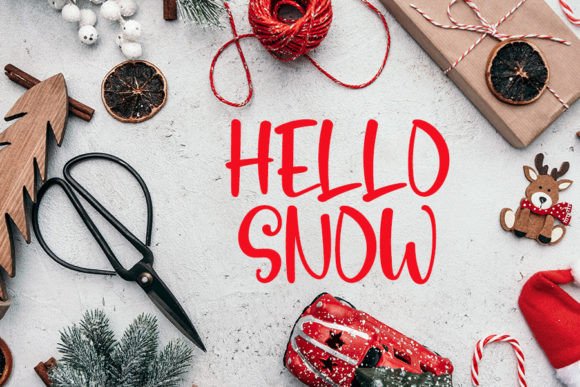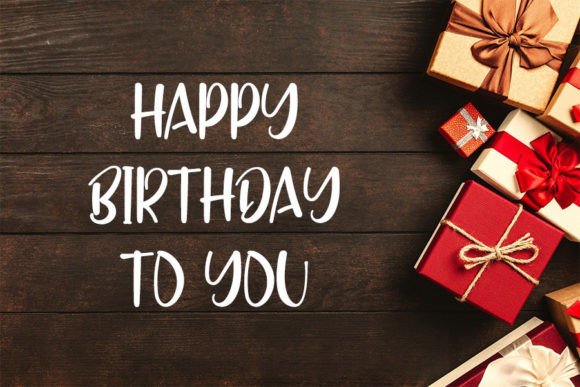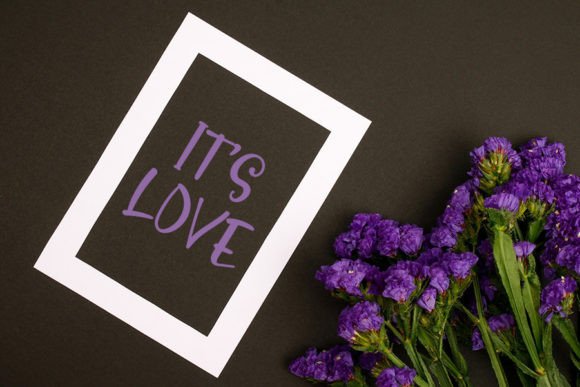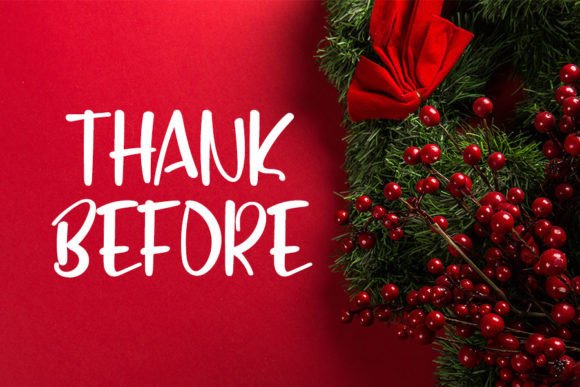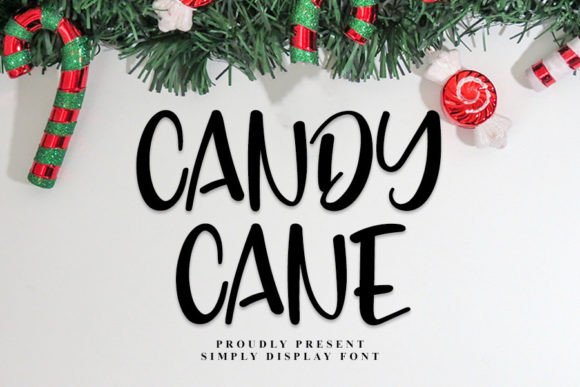
The Sweetest Font for Your Designs: A Comprehensive Guide to Candy Cane Font
Ah, the elusive perfect font. You know, that one font that makes your design project go from meh to mesmerizing. I’ve been there, done that, and got the t-shirt (which, by the way, was probably designed with a font that was almost, but not quite, perfect). One of my most memorable design struggles was working on a festive holiday project for a client who wanted something that captured the essence of the season without being too cliché. That’s when I stumbled upon the Candy Cane font, and let me tell you, it was love at first sight! ✨
An Honest Review of Candy Cane Font
So, what makes Candy Cane font so special? Let’s dive into the good stuff and, of course, a few quirks I’ve noticed.
- ✨ Timeless yet modern: Candy Cane has this rare ability to feel both classic and contemporary at the same time. It’s like that one friend who’s effortlessly cool but still nostalgic.
- ✅ Versatility: Whether you’re designing a holiday card, a branding project, or just a fun craft, this font fits right in. Its balanced and varied nature makes it perfect for a wide range of applications.
- 💫 Impeccable form: The attention to detail in Candy Cane is impressive. Each letter is crafted with care, making it a joy to use in any project.
Now, I’m not here to sugarcoat things (pun intended), so let’s talk about a couple of things to keep in mind:
- ⚠️ Legibility at small sizes: Like many script fonts, Candy Cane can get a bit tricky to read when scaled down too far. Make sure to test it at different sizes to ensure it works for your specific project.
- 🤔 OpenType features might require some getting used to: If you’re new to using OpenType features or glyphs, it might take a bit of time to get the hang of how to access and use them effectively. But trust me, it’s worth it!
The Backstory of Candy Cane Font
While the actual origins of Candy Cane font might not be well-documented, it’s easy to imagine a designer sitting by the fireplace, sipping hot cocoa, and crafting a font that’s both a nod to traditional calligraphy and a breath of fresh air in the digital age. The result is a font that’s as delightful as a candy cane on a winter’s night – charming, whimsical, and full of cheer.
Q: Is Candy Cane font suitable for body text?
A: While Candy Cane is stunning for headings and titles, its script nature might make it less ideal for long body text. However, for short paragraphs or specific design elements, it can work beautifully.
Q: Does Candy Cane support OpenType features?
A: Yes, Candy Cane font comes with OpenType features, including stylistic alternates, ligatures, and more, allowing for a high level of customization and creativity in your designs.
Q: Can I use Candy Cane for my branding project?
A: Absolutely! Candy Cane’s unique yet professional look makes it suitable for branding projects. Its contemporary feel can add a touch of elegance and sophistication to your brand’s visual identity.